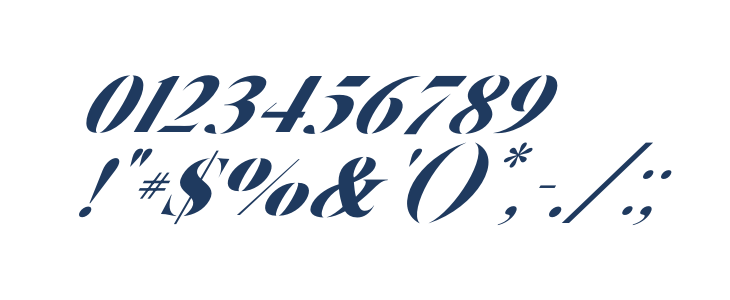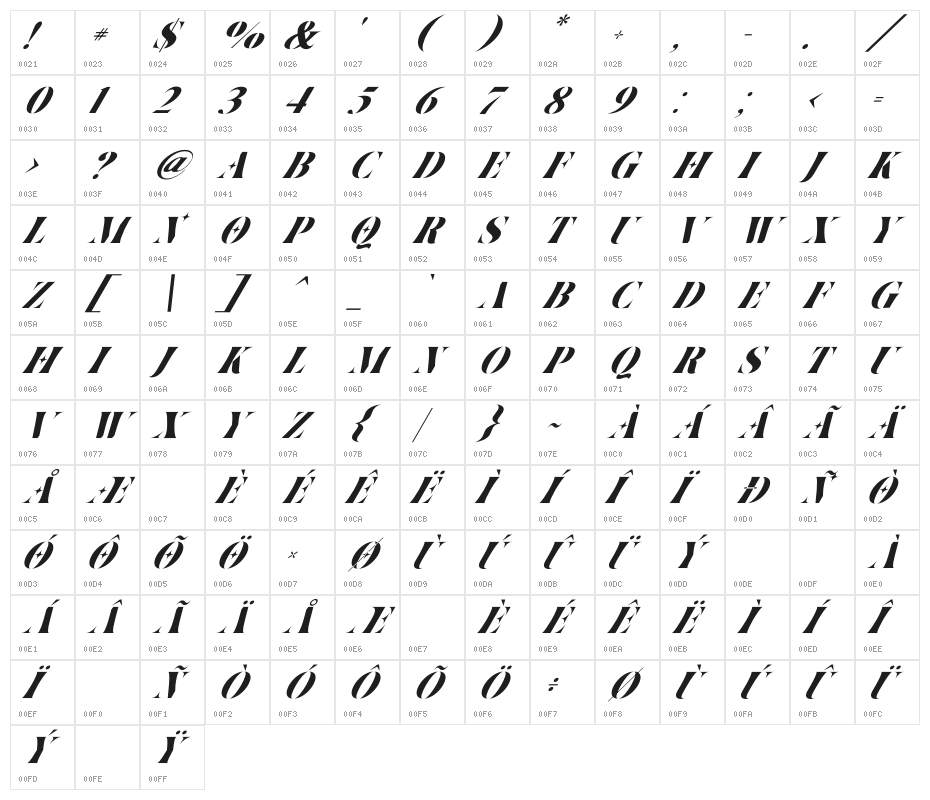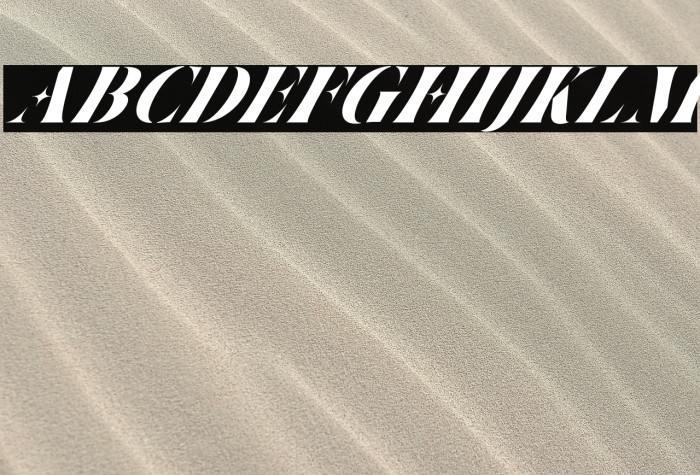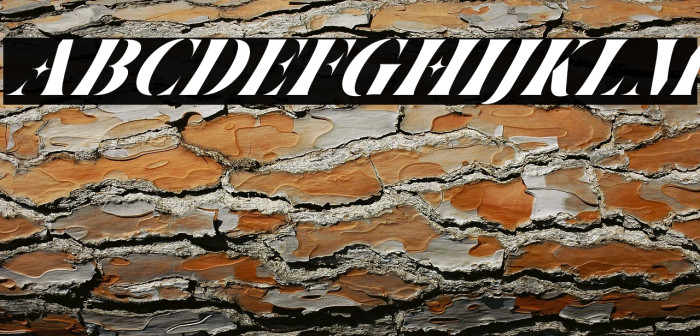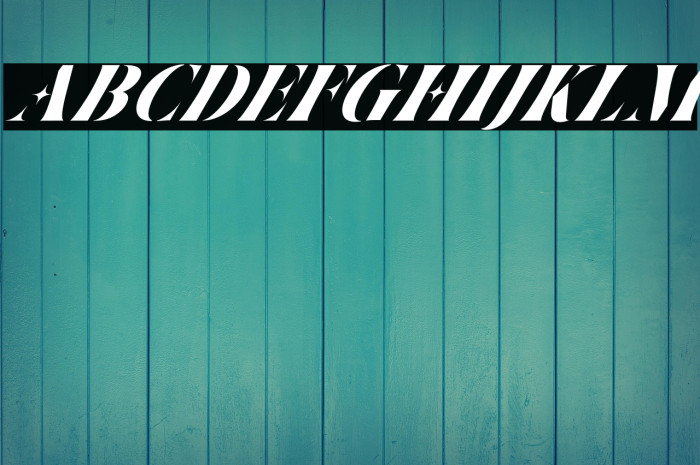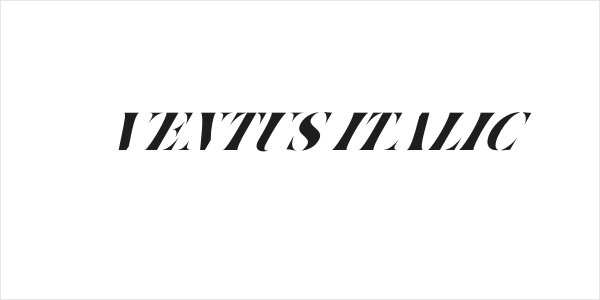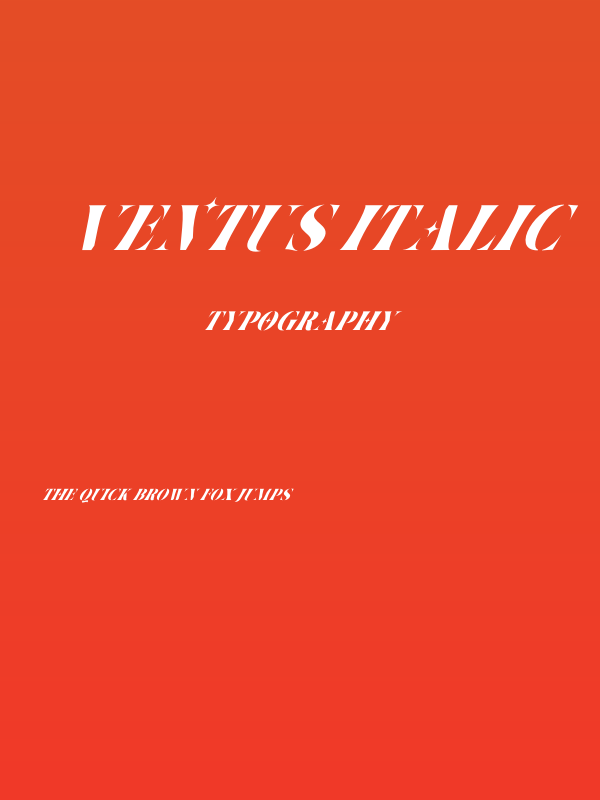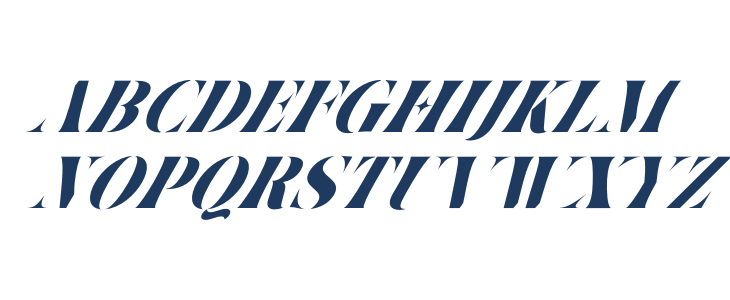
Ventus Italic Font
Ventus Italic Description
This font features a bold and dynamic italic style with a strong slant, giving it a sense of motion and energy. The characters are adorned with unique star-shaped cutouts, adding a decorative and playful element. The strokes are thick and consistent, providing a high contrast that enhances readability while maintaining a stylish appearance. The overall design is modern and eye-catching, suitable for making a statement in various design contexts.